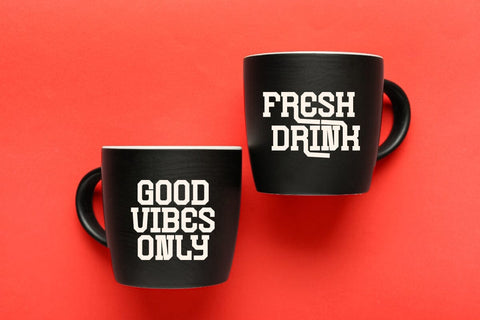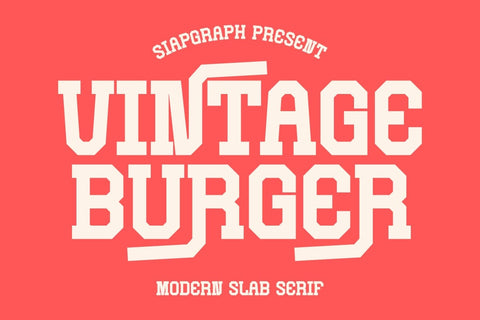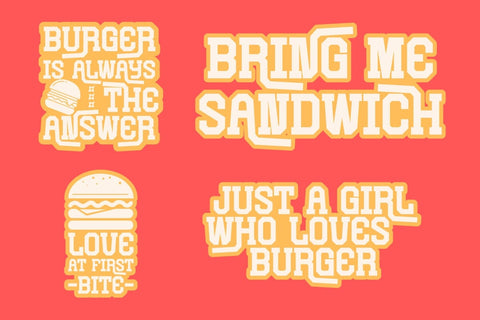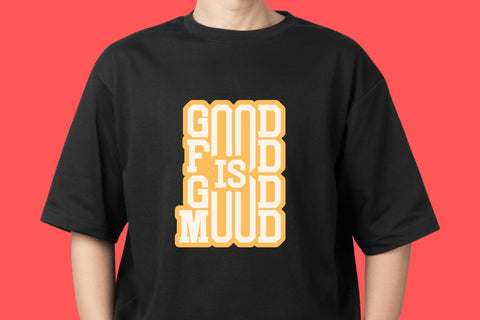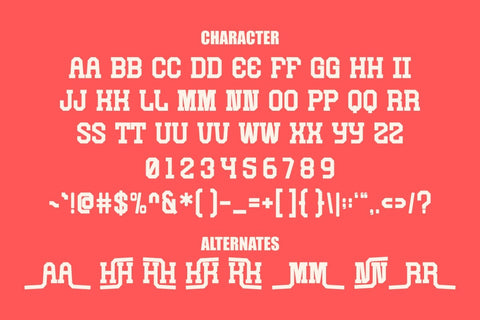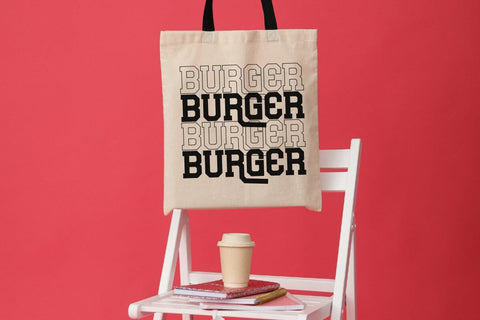
Vintage Burger - Slab Serif Font
Vintage Burger is modern slab serif font with a unique blend of food and Christmas themes. This versatile font is perfect for adding a festive touch to quotes, stickers, labels, t-shirts, tote bags, mugs, and tumblers. Whether you're designing for holiday menus, food-related branding, or festive merchandise, Vintage Burger offers a stylish and bold look that captures the spirit of the season.